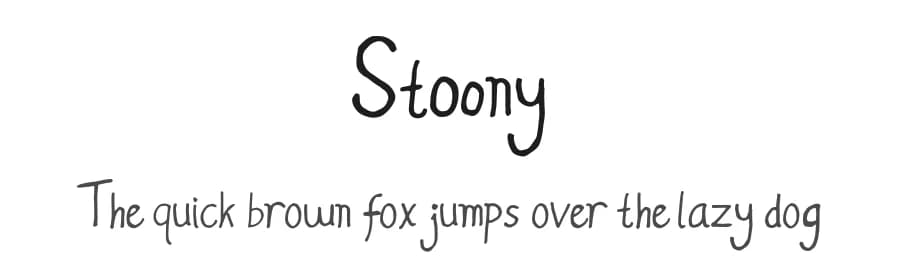
About Stoony Font
Stoony Font is a script font that shines as a display or heading face. Pair it with a clean sans-serif or serif font for body text β the contrast creates a clear hierarchy while the two styles stay balanced and easy to read.
Stoony Font
by Primitype